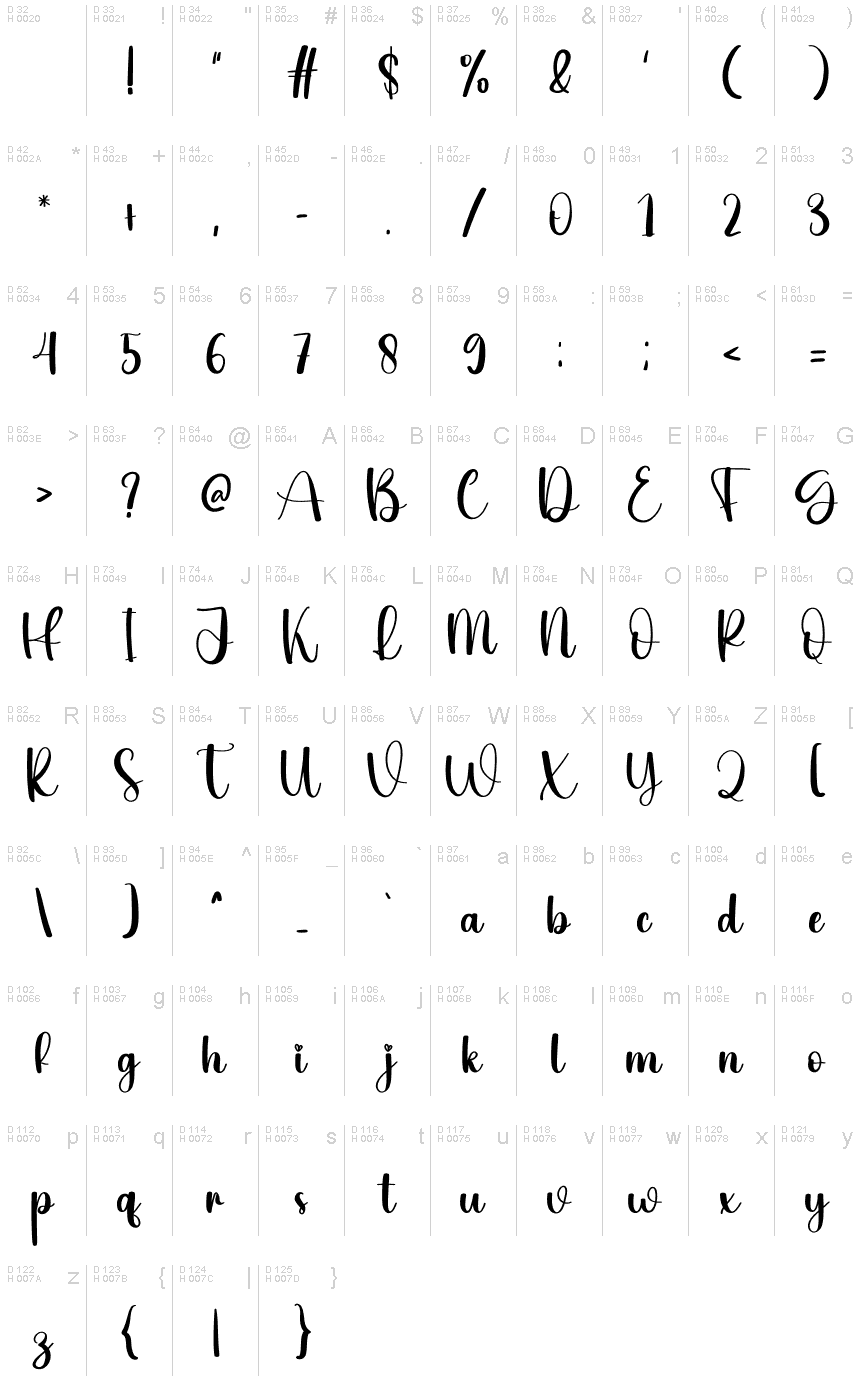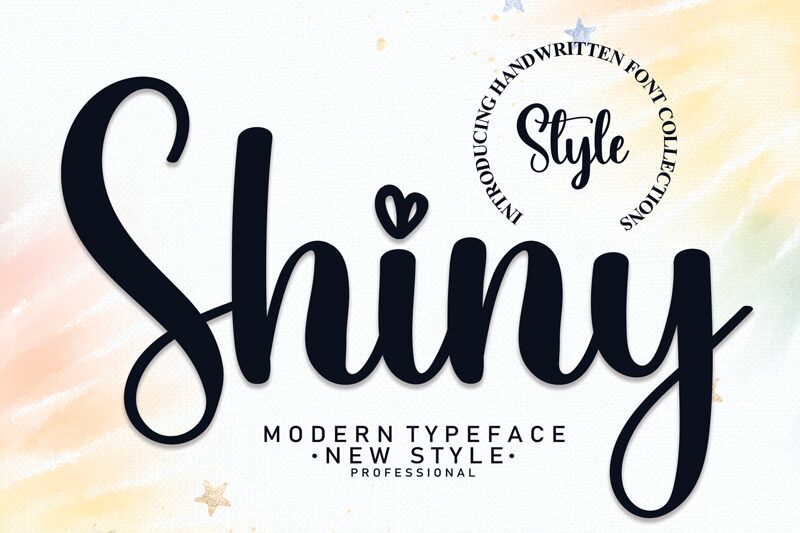
Shiny
Shiny, created by Scratchones, is a calligraphic font that exudes a blend of classic elegance and modern flair. Its sweeping curves and fine lines mimic the grace of traditional handwriting, while its clean execution ensures readability and contemporary charm. This font's aesthetic appeal lies in its harmonious balance between decorative elements and functional design, making it an ideal choice for invitations, branding, and personalized goods.
The Shiny font captures the essence of artisanal craftsmanship with a digital twist. Each character is crafted to convey warmth and personality, which can add a touch of sophistication to any creative project. Whether you're designing wedding stationery or sprucing up social media graphics, Shiny's versatile style will elevate your work with its distinctive calligraphic beauty.